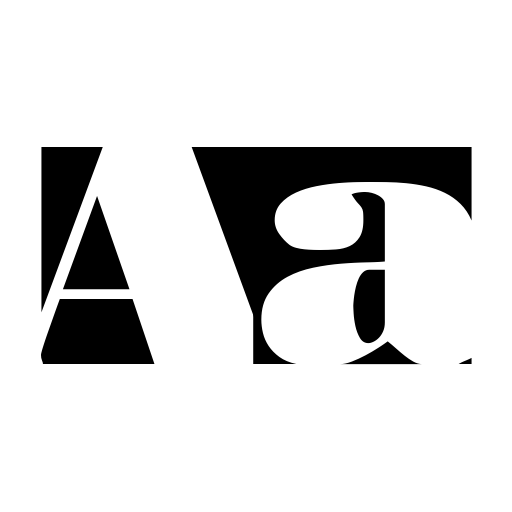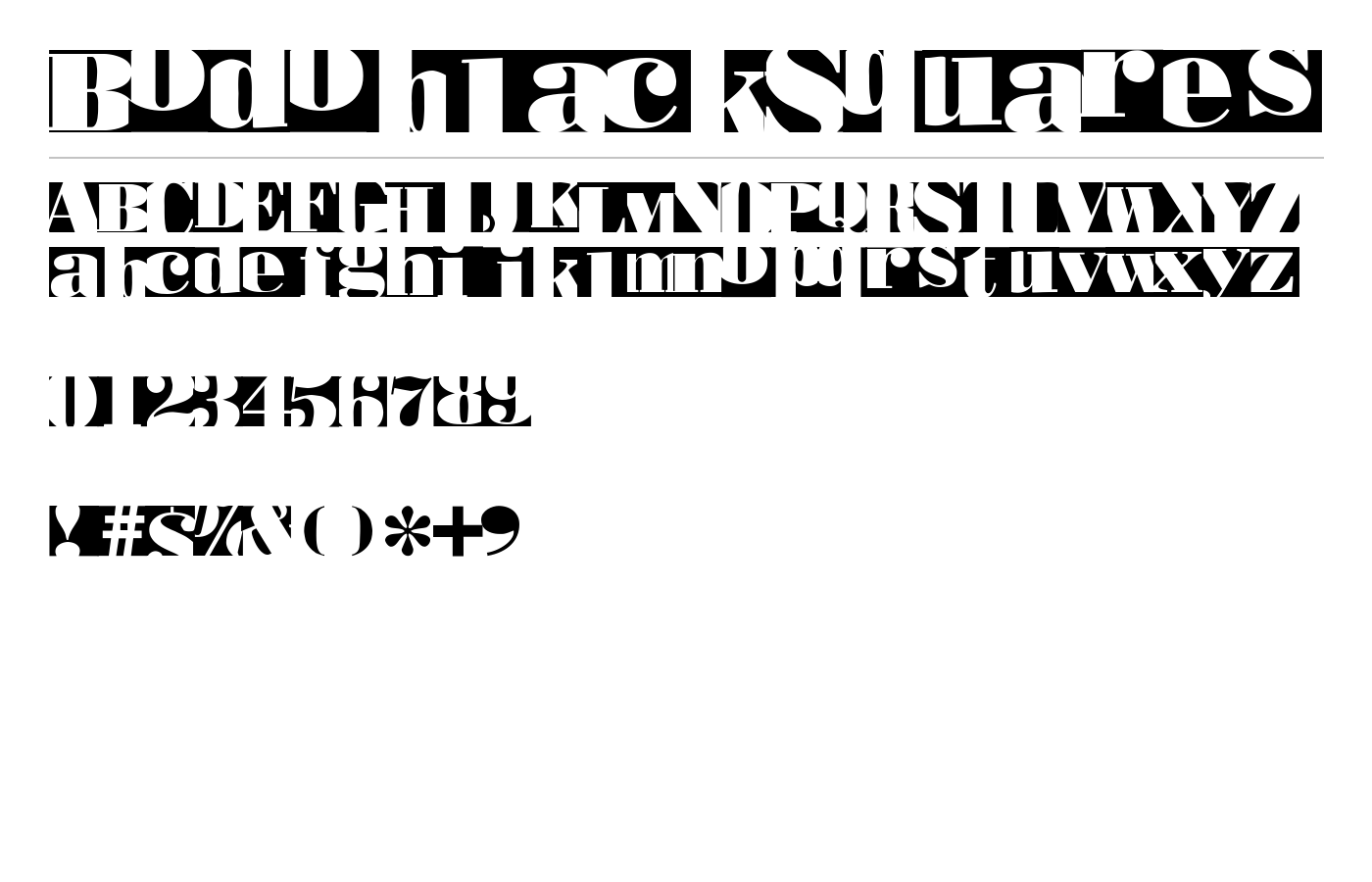
BodoblackSquares is a bold, condensed serif font with a striking high-contrast style, blending sharp, geometric shapes and strong square elements within its letterforms. This font exudes a modern yet vintage vibe, making it perfect for eye-catching headlines, logos, and editorial designs that want to convey strength and uniqueness. Its distinctive style works well in creative branding and fashion contexts where a bold statement is key.
BodoblackSquares Font